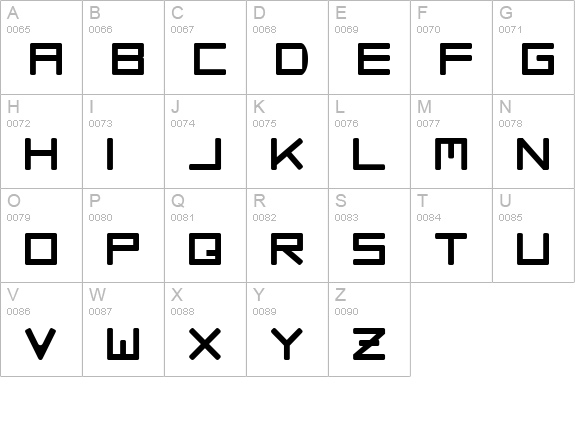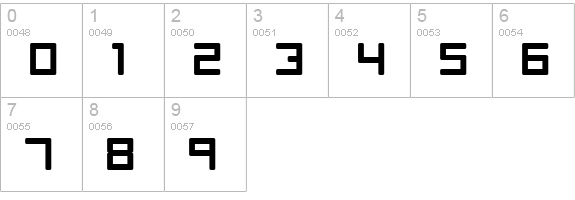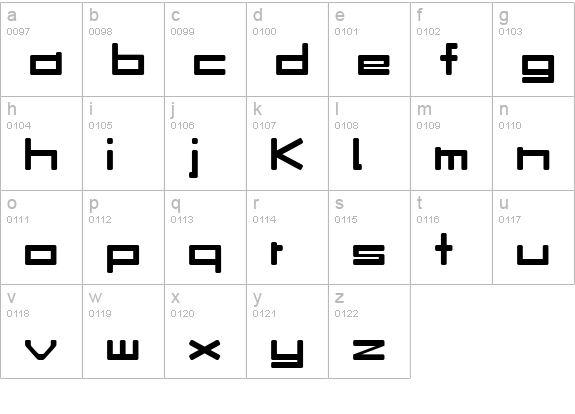
Introducing Rave, a captivating and vibrant font that will bring your designs to life! This font is the perfect blend of energy and excitement, with its bold and dynamic letterforms that dance across the page. Whether you're designing a poster for a music festival, creating eye-catching headlines for a magazine, or adding a touch of flair to your social media graphics, Rave is the ultimate choice. What makes Rave even more appealing is that it is available for free! That's right, you can download this fantastic font at FontsMarket.com without spending a dime. Say goodbye to expensive font licenses and hello to creative freedom. With Rave, you have the freedom to experiment and push boundaries, unleashing your design prowess without any restrictions. This font is not only visually stunning, but it also offers versatility and legibility. The carefully crafted letterforms ensure that your message is conveyed with clarity, even in the midst of its energetic and exuberant style. The unique character variations and playful curves of Rave will make your text jump off the page and demand attention. Don't miss out on this incredible opportunity to elevate your designs with Rave font. Download it for free at FontsMarket.com and let your creativity run wild. Whether you're a professional designer or a passionate enthusiast, Rave will undoubtedly become your go-to font for all things bold, spirited, and unforgettable. So, get ready to make a statement and let Rave font be your secret weapon in the world of design!